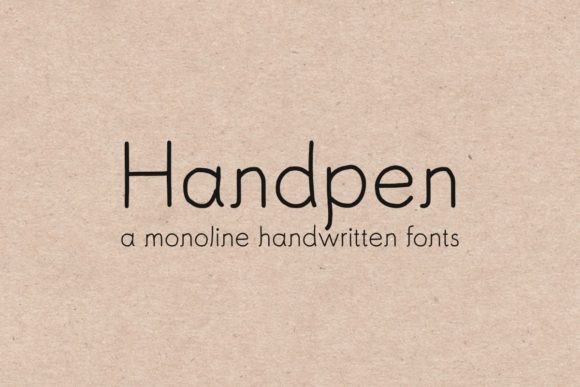
The Perfect Match for Your Creative Vision
Remember that moment when a spark of inspiration strikes, and you’re racing against time to capture it? You’re brainstorming ideas, sketching out rough drafts, and frantically searching for the perfect font to bring your concept to life. This is where the Handpen Font comes in – a minimalist monoline sans serif font that’s designed to help you express your creative ideas with elegance and precision.
Whether you’re crafting a new logo, designing a website, or creating a promotional flyer, the Handpen Font is the perfect companion for your creative endeavors. Its neat and thin characters make it versatile and easy to read, ensuring that your message is conveyed effectively to your audience. For designers, this font is a valuable asset, offering a clean and sophisticated look that elevates any project to the next level.
Handpen Font Key Features
- Font Styles: Handpen Font is available in multiple styles, including Handpen, Handpen Script, Handpen Brush, and Handpen Bold.
- Character Set: Handpen Font includes a comprehensive character set, covering Latin, Greek, and Cyrillic alphabets, as well as punctuation and symbols.
- Unique Characteristics: Handpen Font is known for its organic, hand-drawn feel, with subtle imperfections and variations that give it a unique, human touch.
Review: Handpen Font
Overall, I’m quite impressed with the Handpen Font. ✨ It’s a beautiful, elegant script font that’s perfect for any design project that requires a touch of sophistication. The font is highly customizable, with a wide range of weights and styles to choose from.
- ✨ Highly customizable with multiple weights and styles
- ✨ Elegant and sophisticated look
- ✨ Perfect for projects that require a touch of luxury
- ✨ Works well for both print and digital designs
Overall, I’d highly recommend the Handpen Font for any design project that requires a touch of elegance and sophistication. With a bit of practice and patience, you’ll be able to master this beautiful font and create stunning designs that will impress.
Getting the Most Out of Handpen Font
For the best results, use Handpen Font in combination with bold, cursive, or script fonts to create visually appealing and unique designs.
Experiment with different font sizes, colors, and styles to create a cohesive look.
Use Handpen Font for headings, titles, and short paragraphs to add a personal touch to your designs.
Handpen Font is ideal for:
Personalized gift tags and cards
Handmade or DIY product labels
Artistic and creative projects